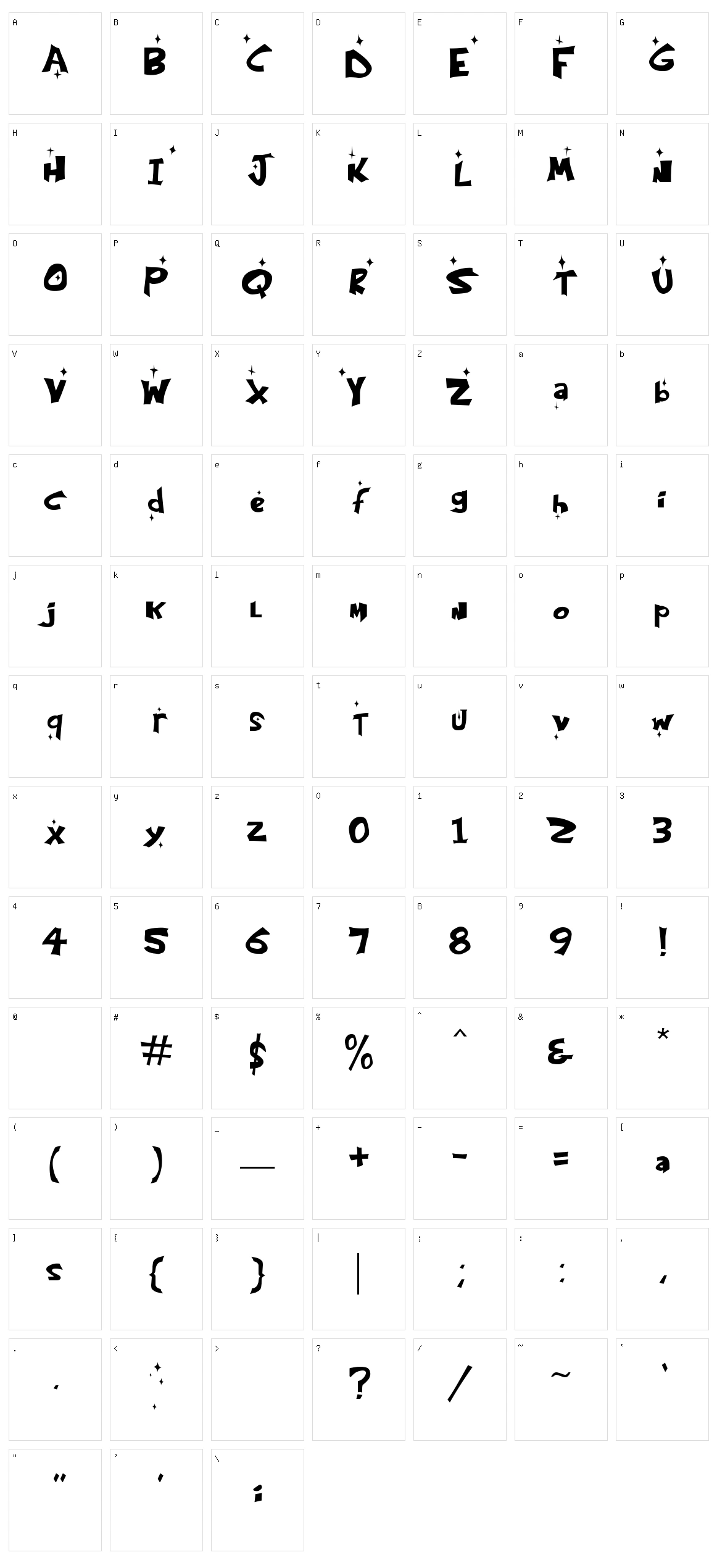
The free font Kringle Castle is carefully designed by Steve Ferrera, showcasing a thoughtful balance of creativity and usability and falls under the Cartoon font style. When you download the ZIP file, it contains only 54.84 KB of font files, making it lightweight and quick to download. Please review the license details below to understand permitted usage and distribution rights. If license information is not available, we recommend using this font for personal projects only or contacting the author directly for commercial usage permissions.
This set includes 2 fonts, Kringle Castle and Kringle Castle Night.